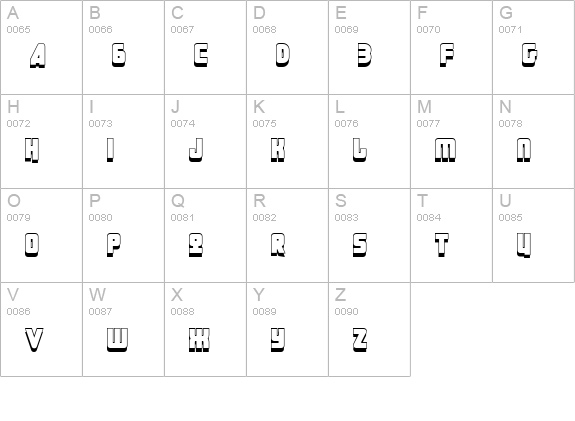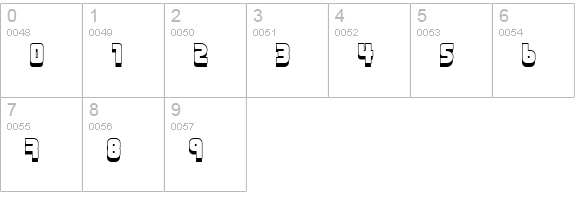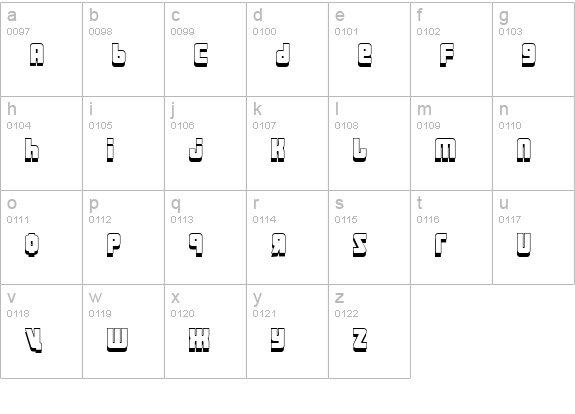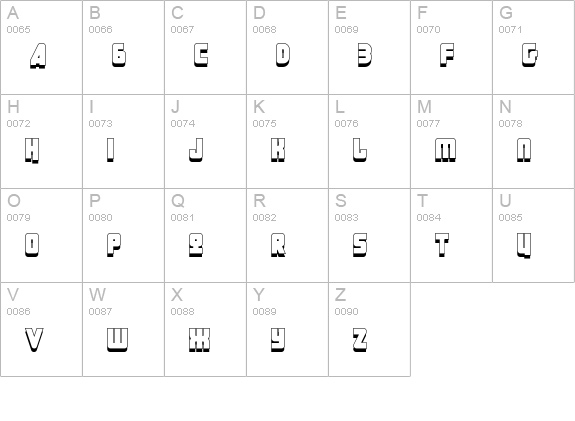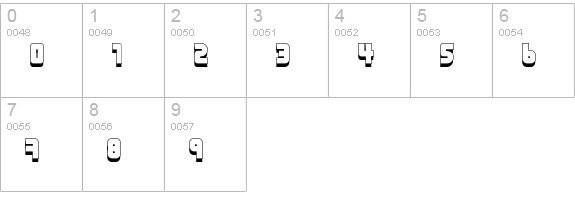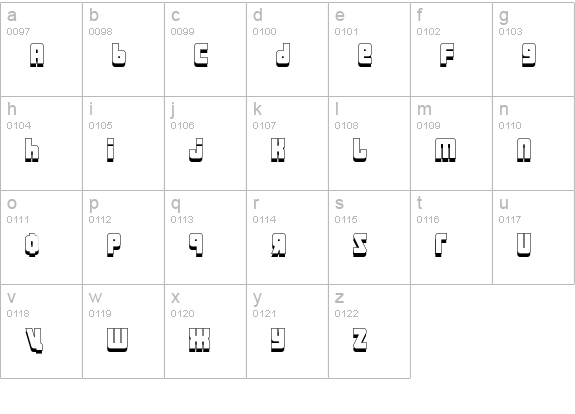
URAL 3d Font Details
Introducing the captivating and visually stunning URAL 3d font, a true masterpiece in the world of typography. This unique font is designed to add depth and dimension to your projects, making them truly stand out from the crowd. With its exquisite 3D effect, URAL 3d font brings a whole new level of creativity and sophistication to your designs. Each character is meticulously crafted to create a sense of depth, giving your text an eye-catching appearance that is both modern and timeless. What sets URAL 3d font apart is not only its impeccable design, but also its versatility. Whether you are working on a logo, poster, website, or any other design project, this font will effortlessly elevate your work to new heights. The best part? URAL 3d font is available for free download exclusively at FontsMarket.com. Yes, you read that right - this exquisite font is freely available for you to download and use in all your personal and commercial projects. So why wait? Unleash your creativity and make a bold statement with URAL 3d font. Download it today and experience the power of 3D typography like never before.